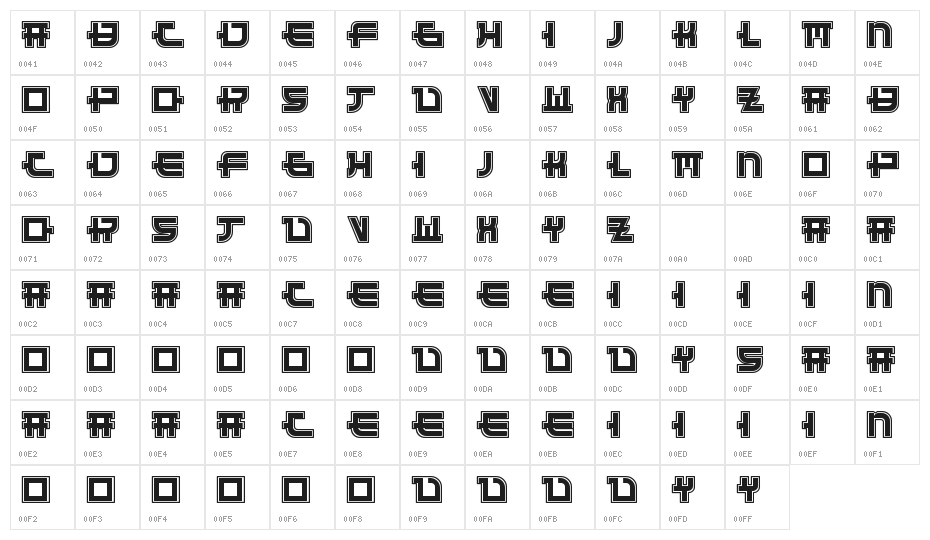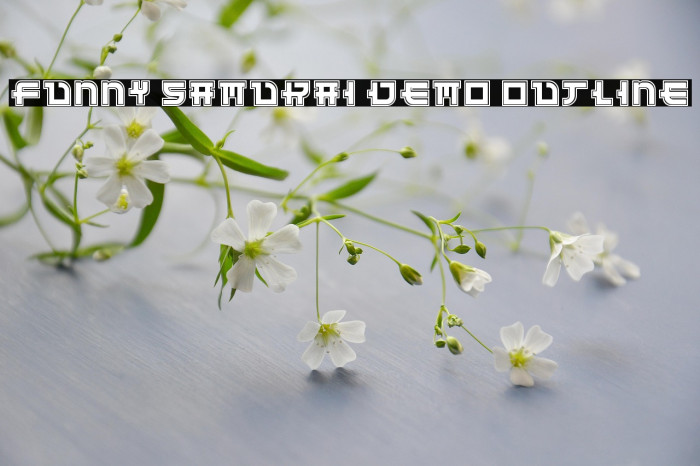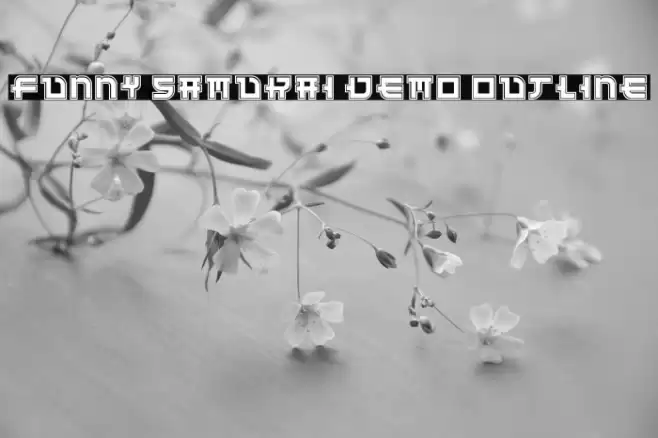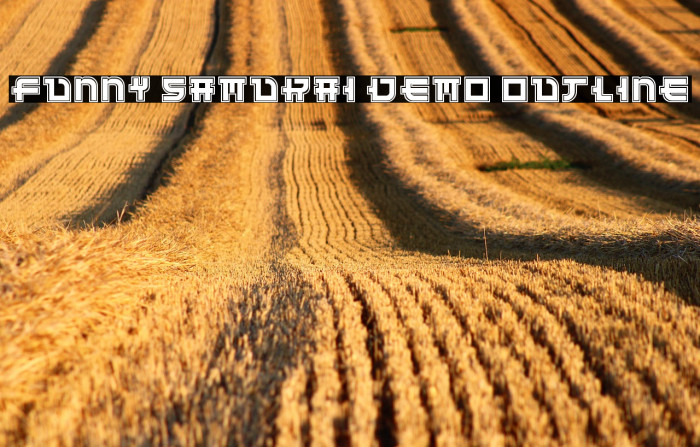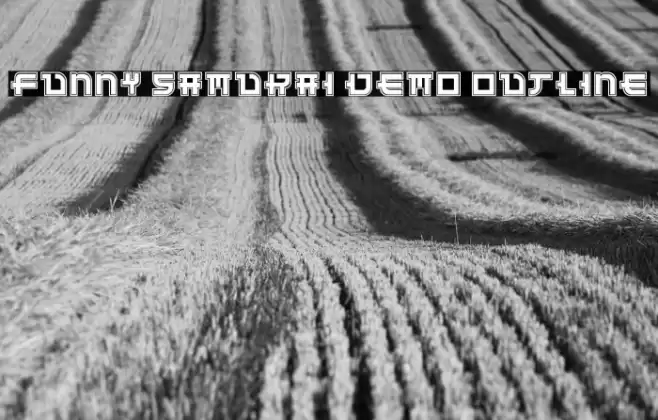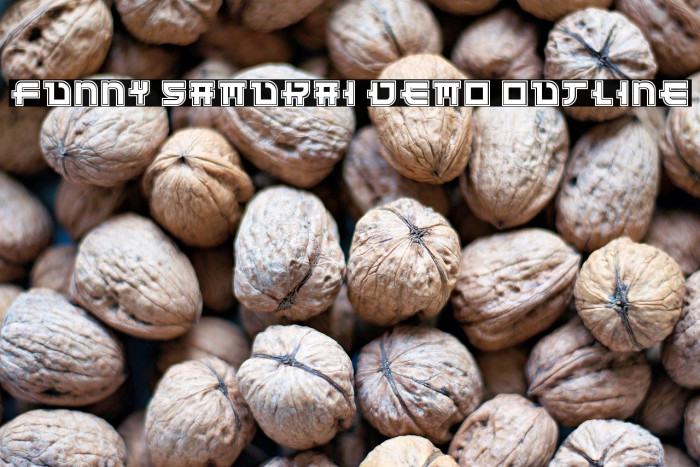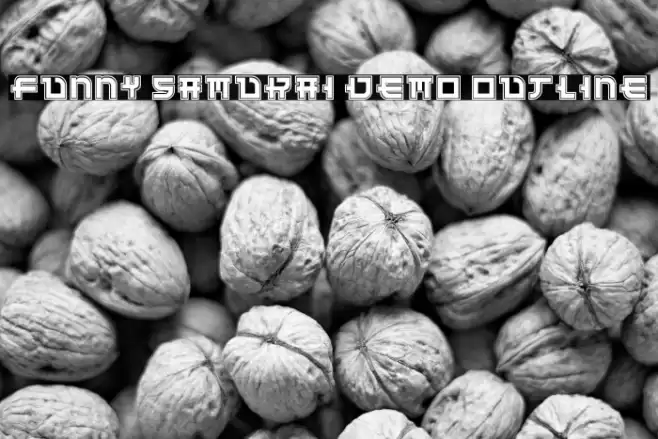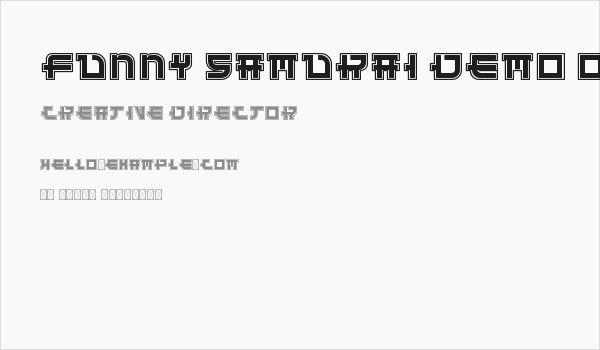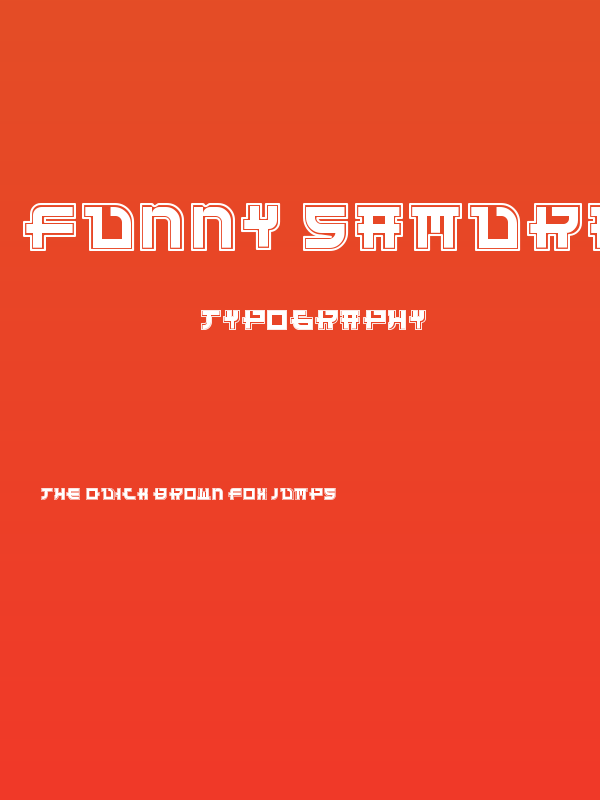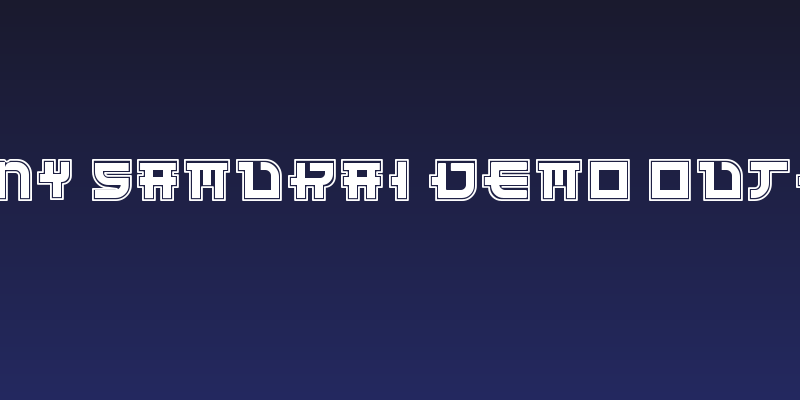
Funny Samurai Demo Outline Font
Funny Samurai Demo Outline Description
This font features a bold, geometric design with a distinct outline that gives each character a striking, three-dimensional appearance. The angular shapes and sharp edges create a futuristic and dynamic look, reminiscent of digital or sci-fi themes. The uppercase letters are particularly prominent, with a strong presence that commands attention. The font's unique style is both playful and assertive, making it suitable for projects that require a modern and edgy aesthetic. The characters are evenly spaced, ensuring readability while maintaining their bold impact.
| Proposed Projects | Ideal for video game titles, sci-fi movie posters, tech branding, and modern advertising campaigns. |